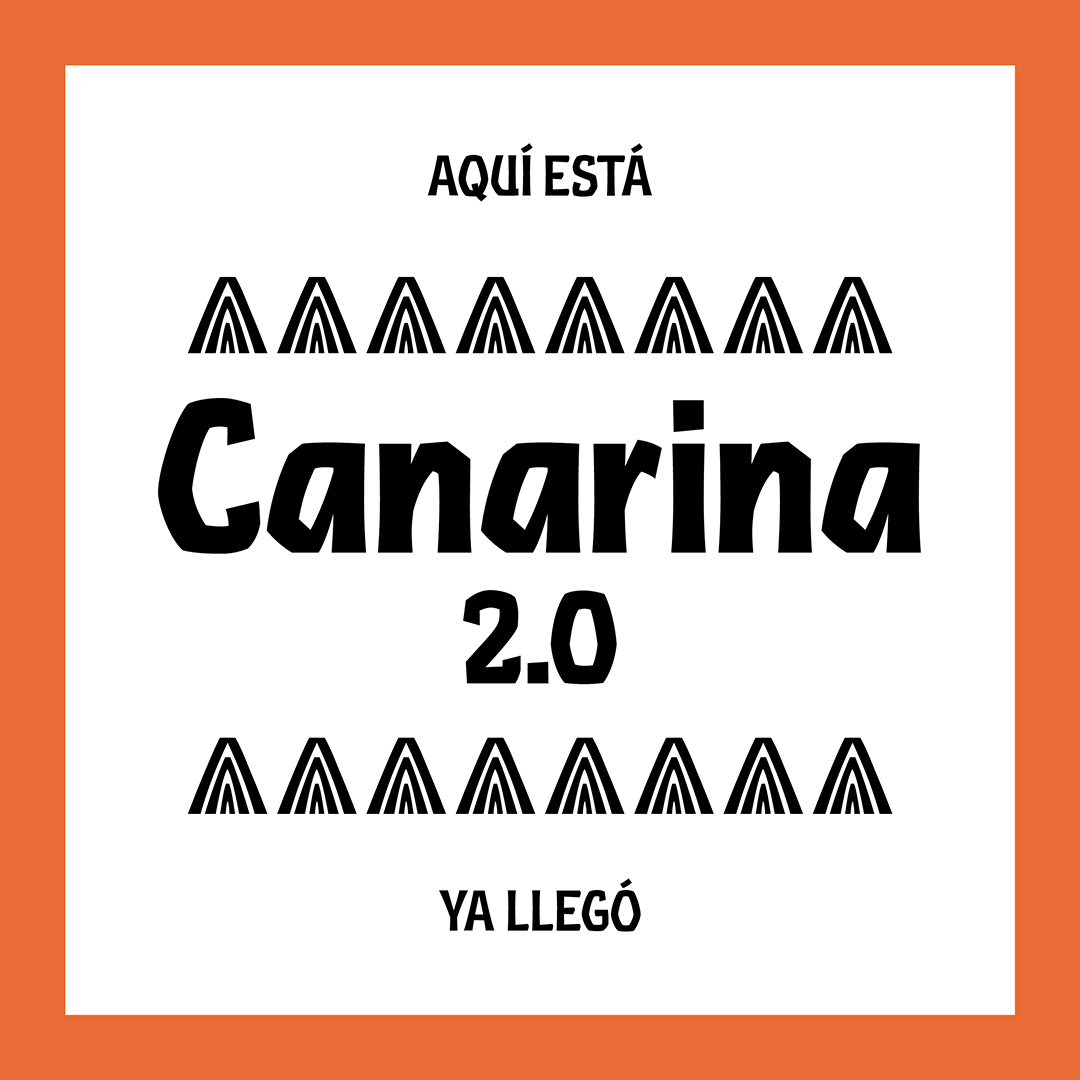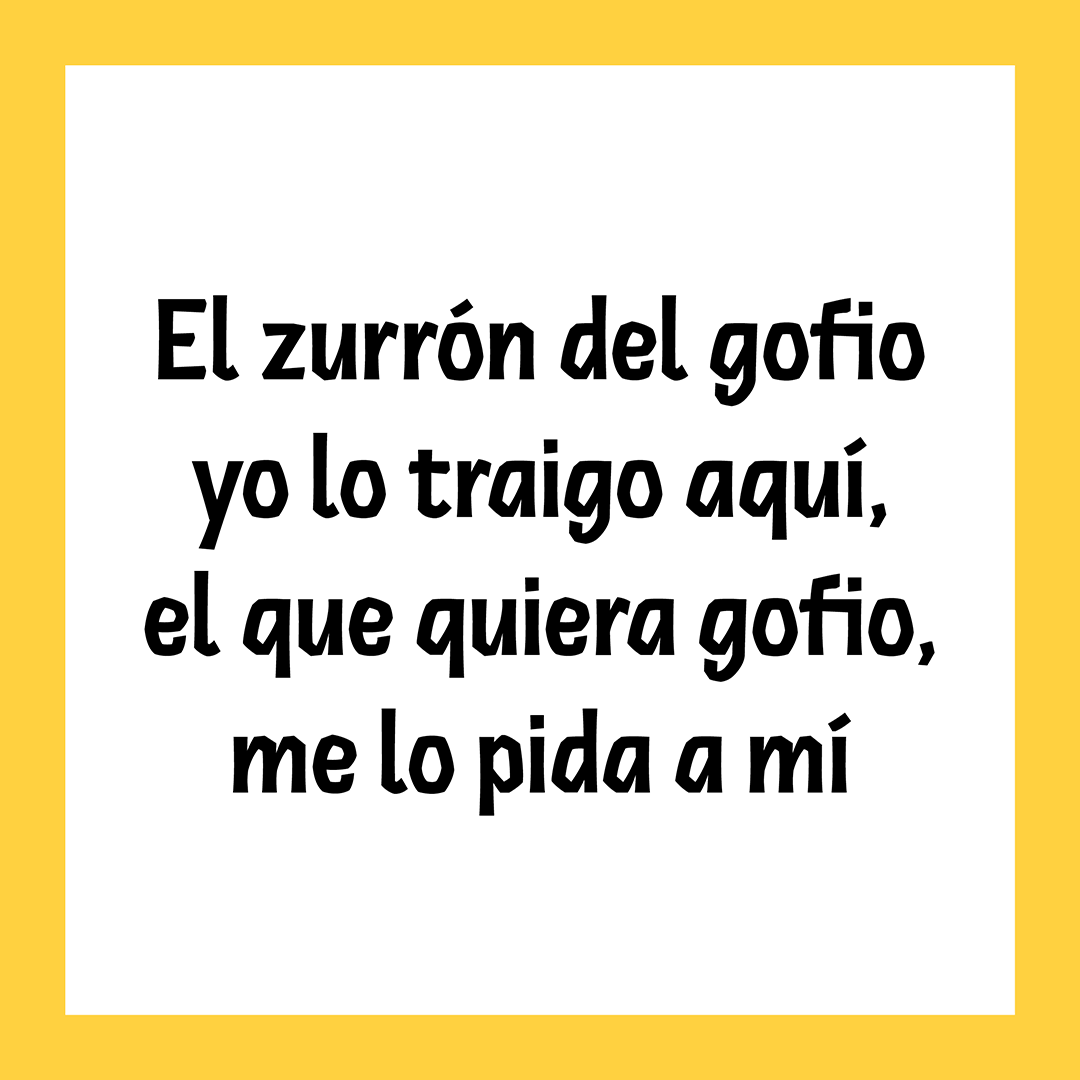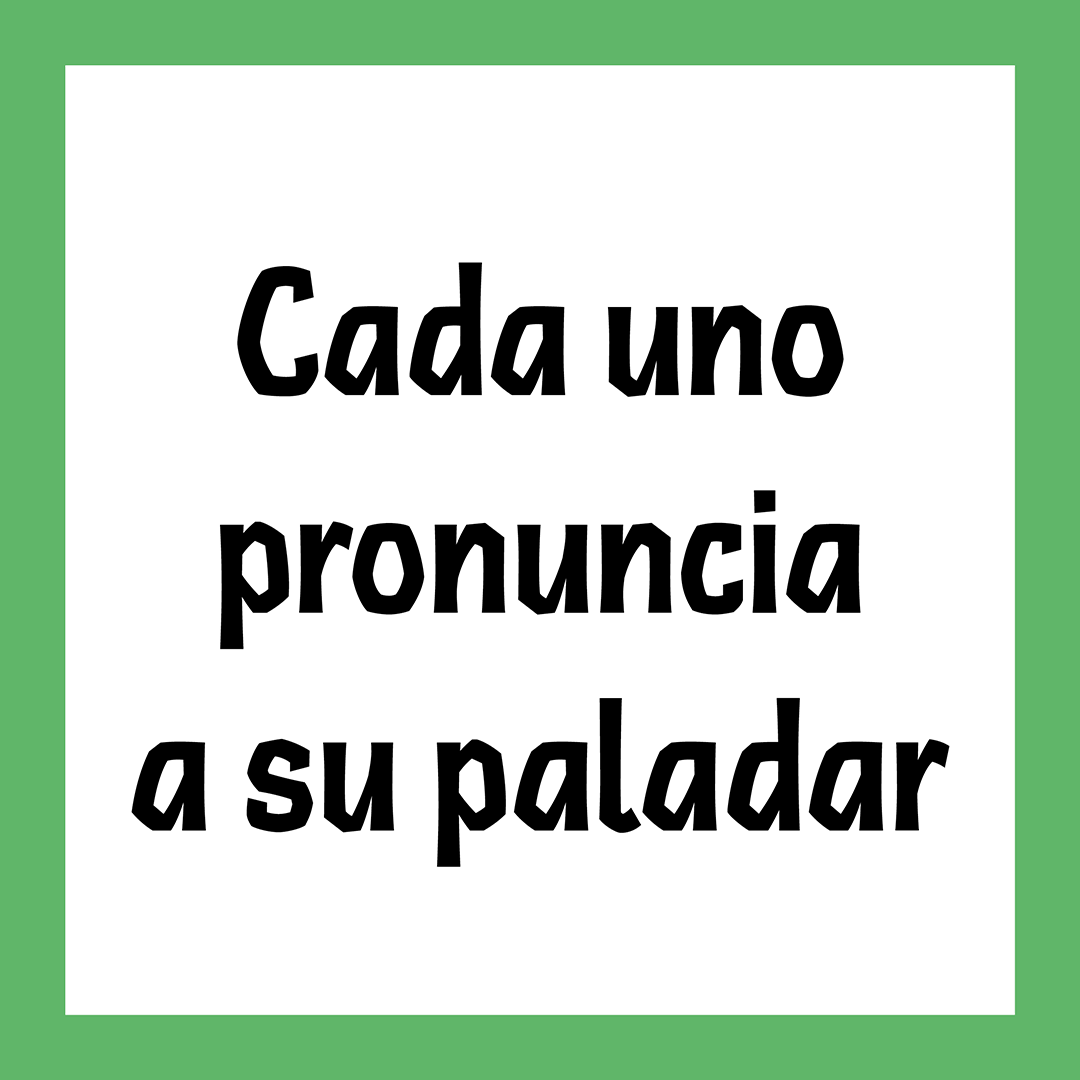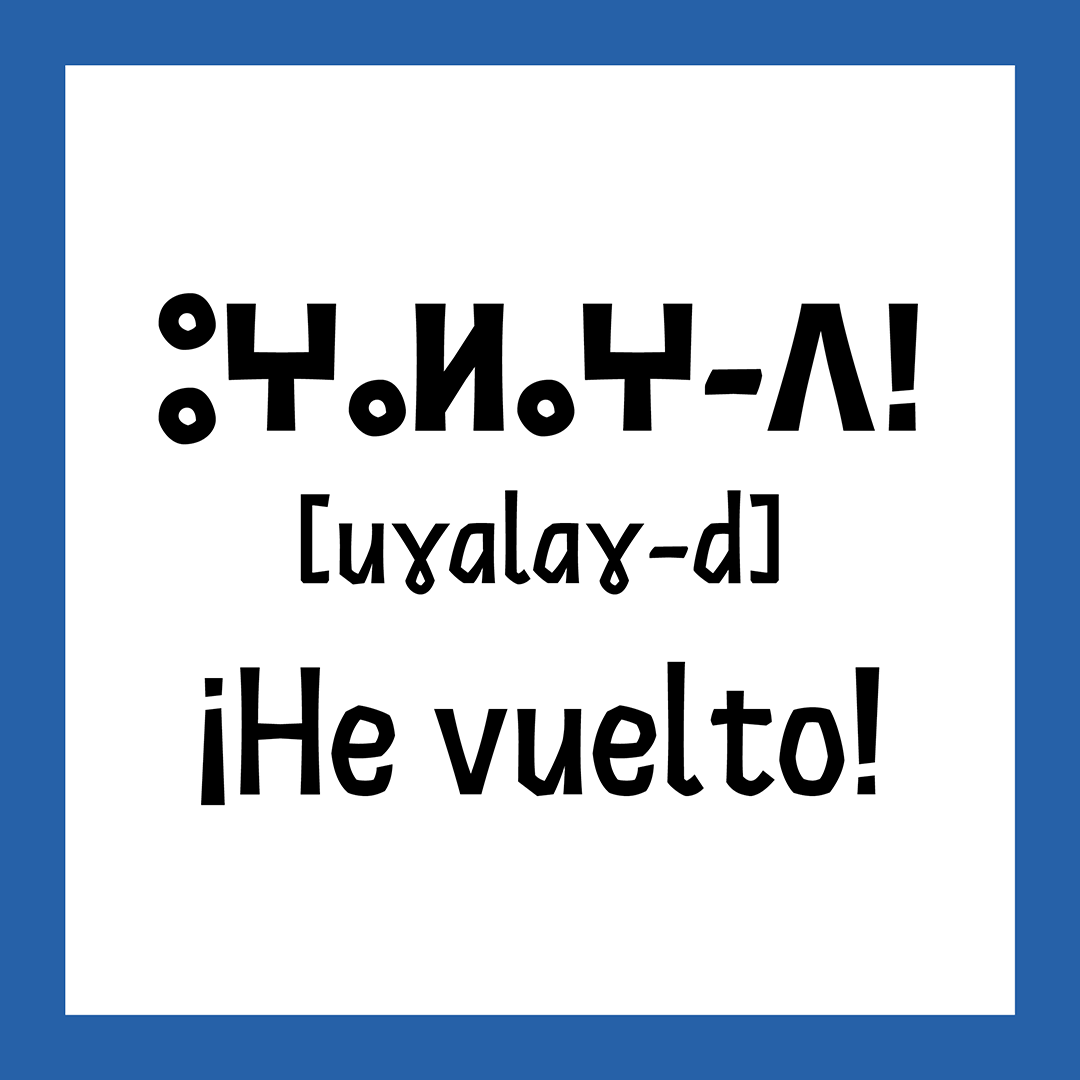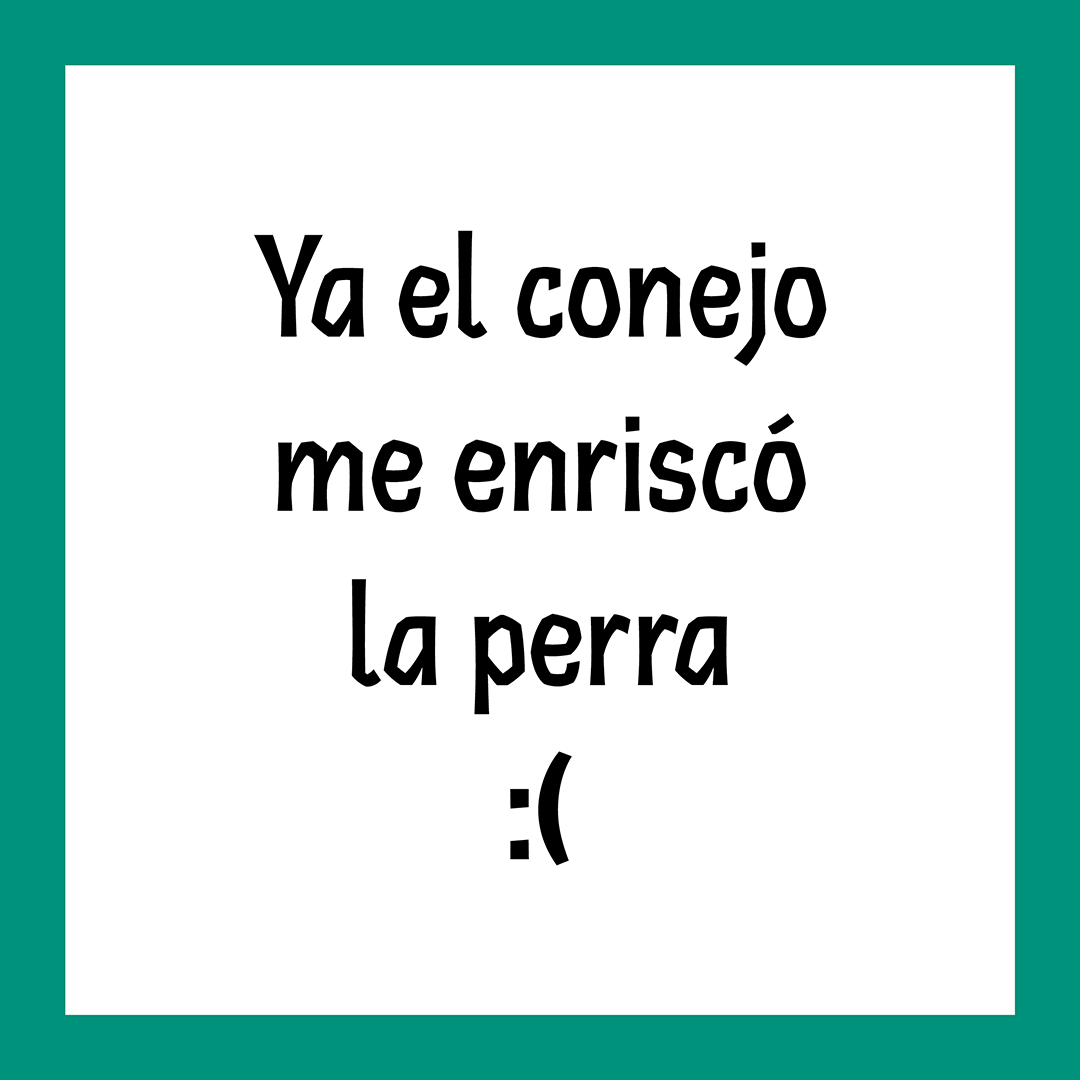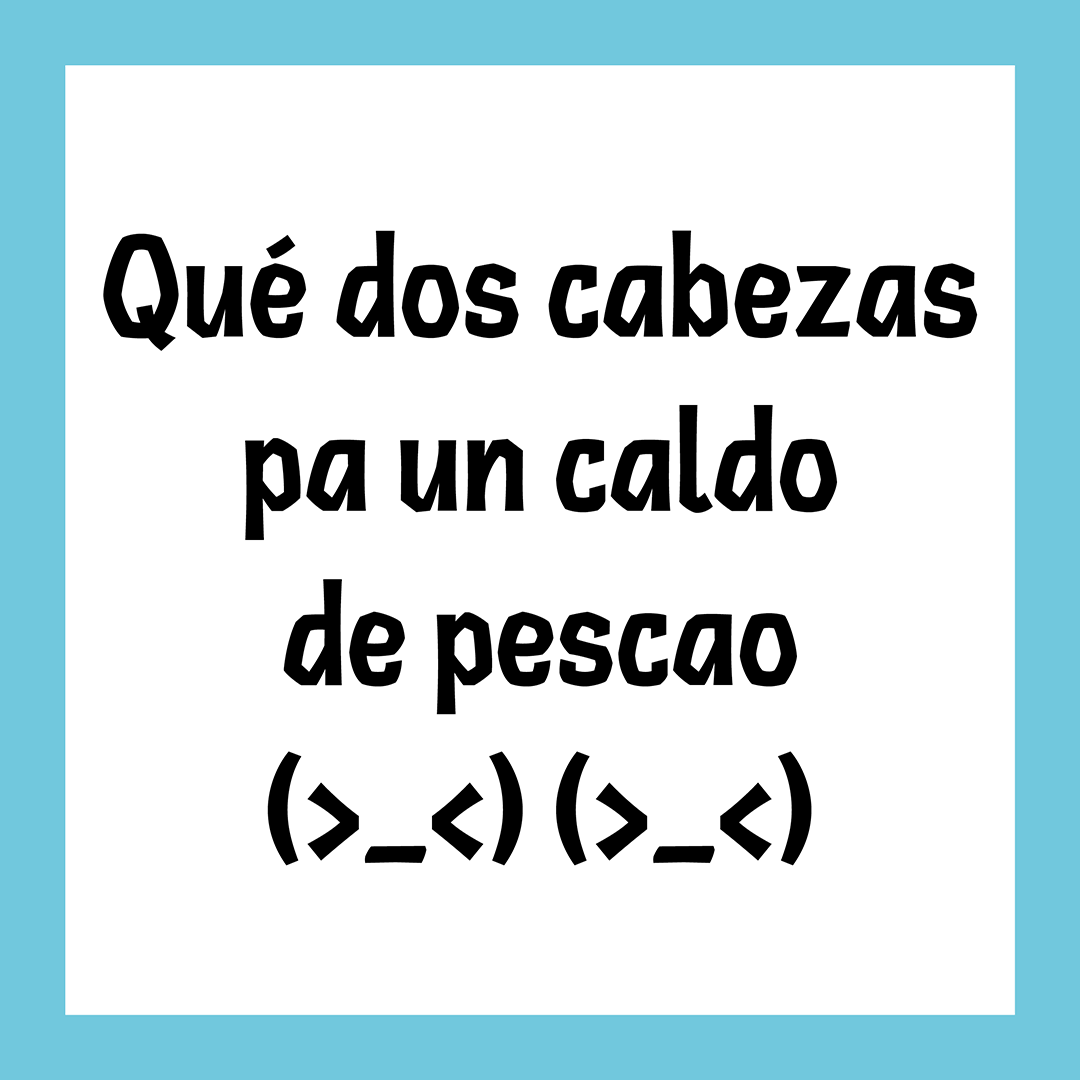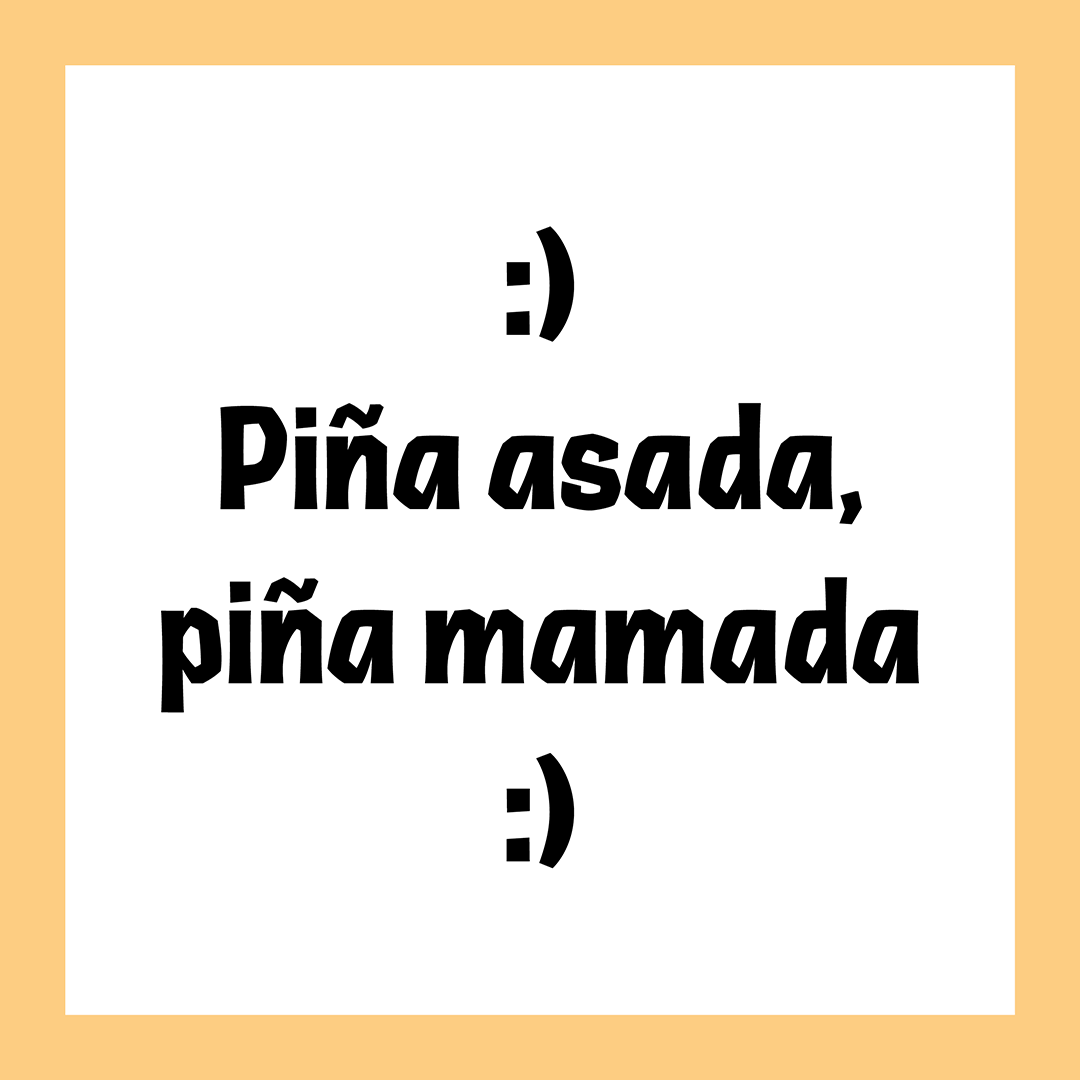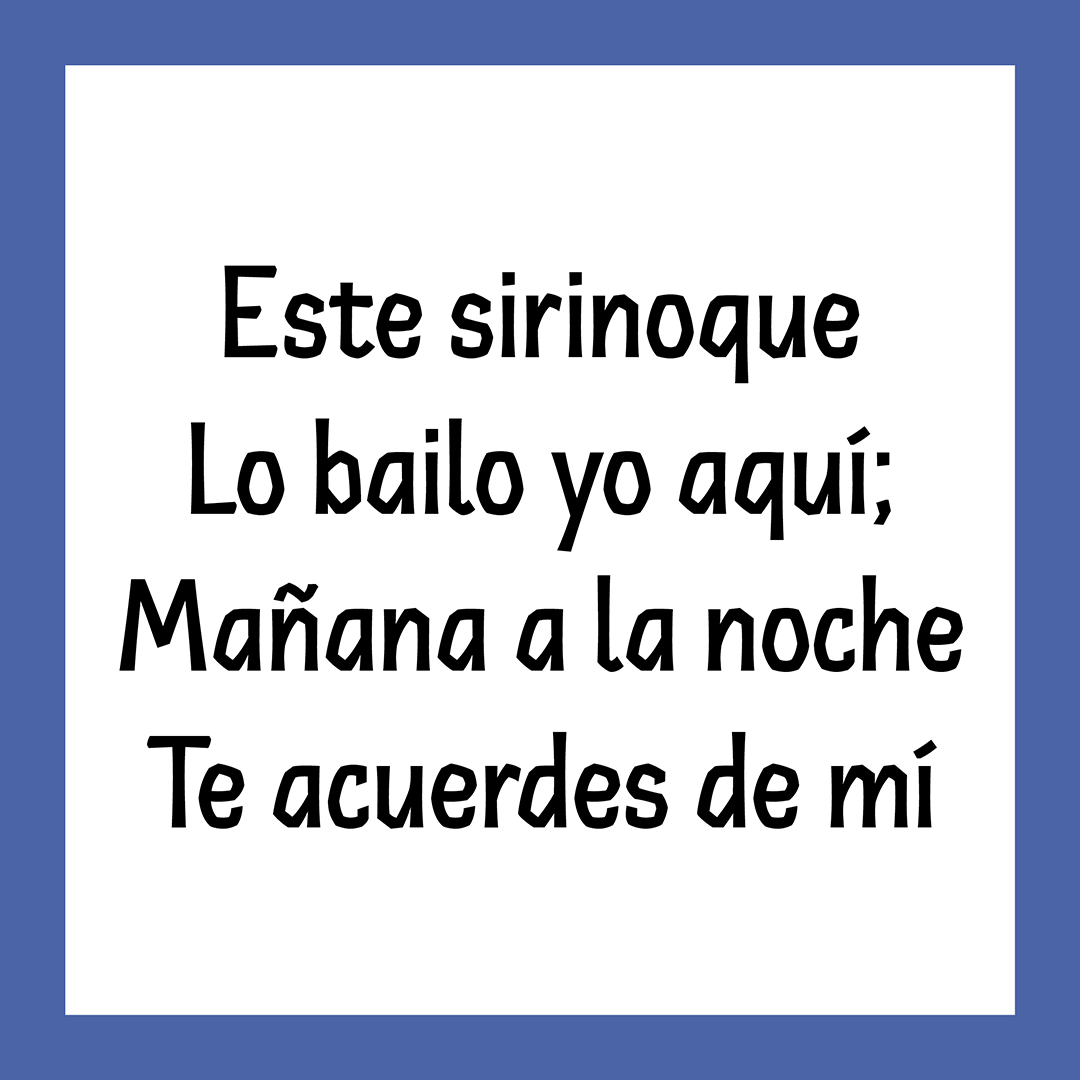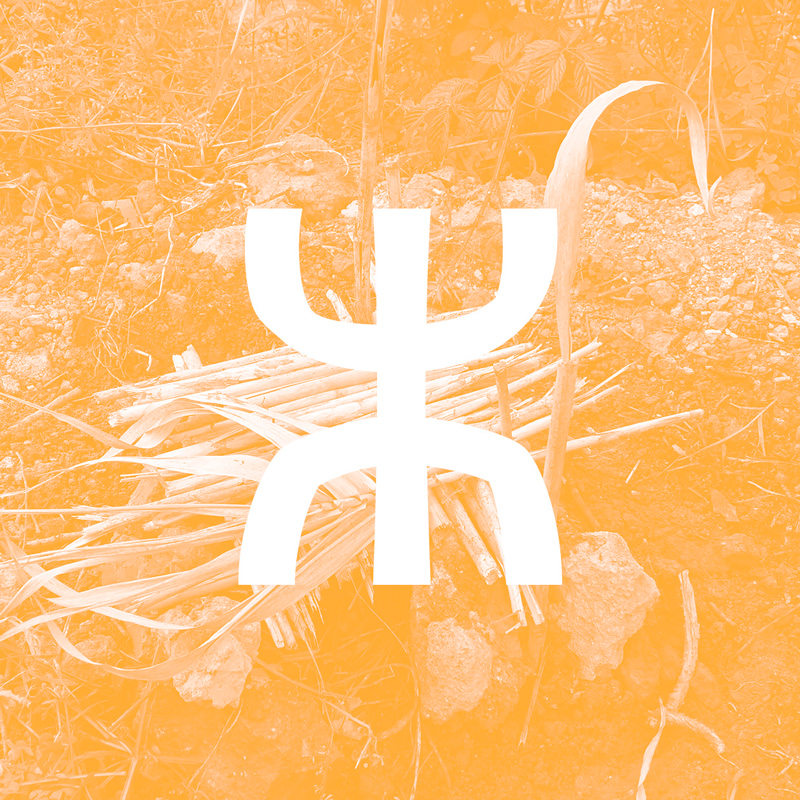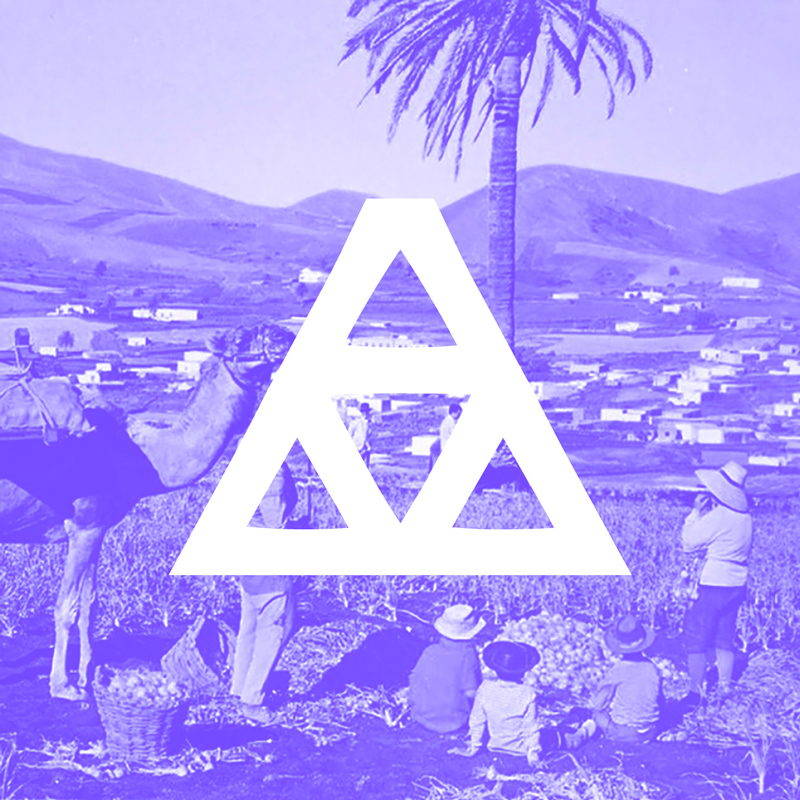
Canarina
Canarina is a font inspired by the Canary Islands, that aims to recreate traces of their history and character. Canarina takes it’s name from a plant called Canarina canariensis, a leafy vine with red bell-shaped flowers, which is one of the symbols of the islands.
As a matter of fact, the Canary Islands don’t have a strong typographic tradition. Most of the metal types that were used to print books locally were imported from Europe, so they’re not qualitatively different from the ones used on Spanish (and other European) presses at the time. The inspiration for Canarina comes instead from other graphic arts of the XXth century, and in particular the works of Eduardo Millares Sall (creator of the Cho-Juaá character) and César Manrique (an informalist painter and abstract sculptor). The shapes of their plastic works got reflected in the wide angles of the letters. Its overall design also presents a strong vernacular look.
Canarina is a fingerprint, a phonolitic stone, the leaf of a succulent plant, the silhouette of a volcanic rock against the sky, a feeling that’s hard to translate. To know what you can do with this typeface, please visit our FAQ page.
V 2.0 - Sirinoque
This version offers two new weights, better support for languages that are based on the Latin alphabet and improved drawing and spacing.